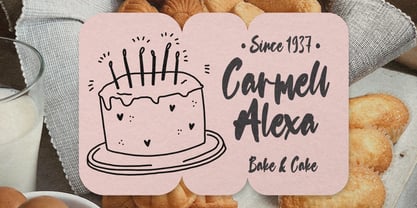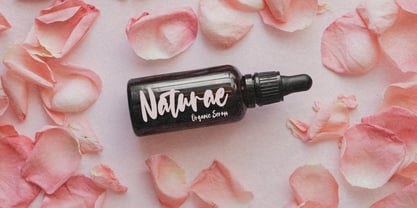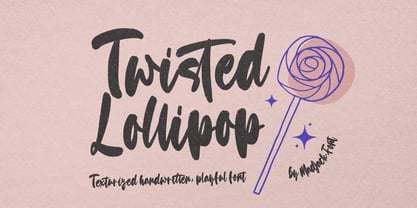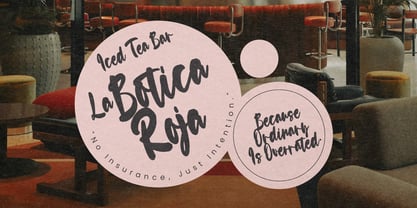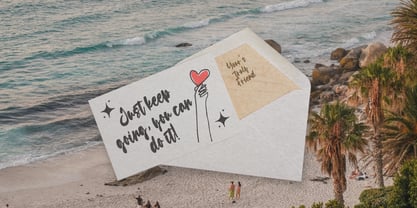
Twisted Lollipop
The Twisted Lollipop Font Family was designed by Zaki Muhammad and published by madjack.font. Twisted Lollipop contains 1 styles.
Hi everyone, I would like to introduce Twisted Lollipop, a modern and stylish handwritten font.
Twisted Lollipop can be used for various projects such as branding, labels, photography, invitations, stationery, wedding designs, social media posts, advertisements, product packaging, product designs, and more.
Letters, numbers, symbols, punctuation, alternates, and ligatures
The font includes multilingual support